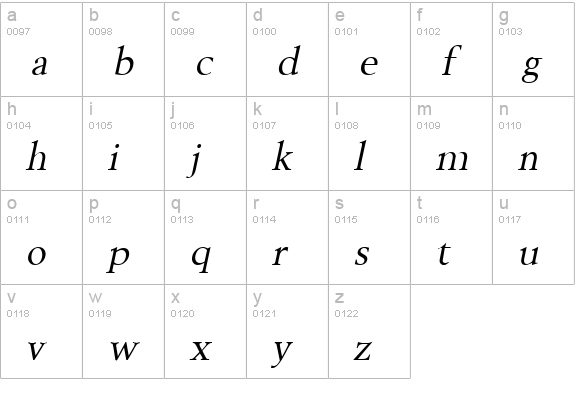
Revive 8 Italic Font Details
Revive 8 Italic is a distinctive, italic variant in the Revive typeface family \xE2\x80\x94 well suited to design and typography projects.
Revive 8 Italic font is a stunning typeface that exudes elegance and sophistication. Its sleek and stylish design makes it perfect for a wide range of creative projects, from branding and logo design to website headers and print materials. The Revive 8 Italic font features a unique blend of sharp angles and smooth curves, creating a harmonious balance between modernity and classicism. Its italicized form adds a touch of dynamism and flair to any text, making it stand out with a sense of energy and motion. What sets Revive 8 Italic font apart is not only its exquisite design, but also the fact that it is available for free. Yes, you read that right - this exceptional font can be downloaded at no cost from FontsMarket.com. This means that you can enhance your designs with this remarkable typeface without breaking the bank. Whether you are a professional designer or a passionate hobbyist, Revive 8 Italic font is a must-have in your font library. Its versatility and timeless appeal make it suitable for various projects and design styles. Whether you want to create a striking headline or add a touch of elegance to your body text, this font is sure to deliver. With Revive 8 Italic font, you have the freedom to explore your creativity and bring your design visions to life. Its clean and legible letterforms ensure that your message is conveyed with clarity and impact. Whether you are designing for print or digital platforms, this font will elevate your work to new heights. So why wait? Download Revive 8 Italic font for free at FontsMarket.com and unlock a world of possibilities for your design projects. Experience the beauty and versatility of this font and let it breathe life into your creations. Embrace the boldness and sophistication that Revive 8 Italic font brings, and make your designs truly unforgettable.